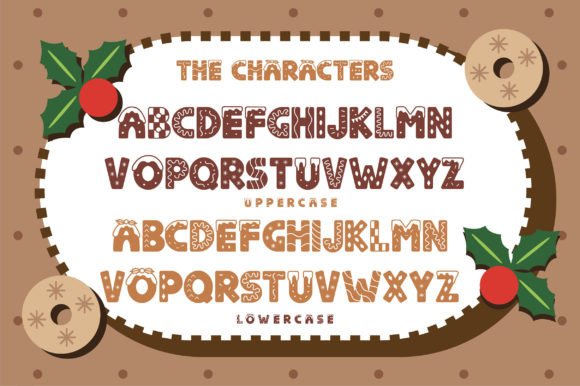
Delicious Cookies is a decorated font perfect for the holiday season. This font is ideal for your event poster, greeting cards, and flyers. This bold and unique style will engage the viewer’s attention. This font is also great for those who are looking for a cookie’s look-alike font.